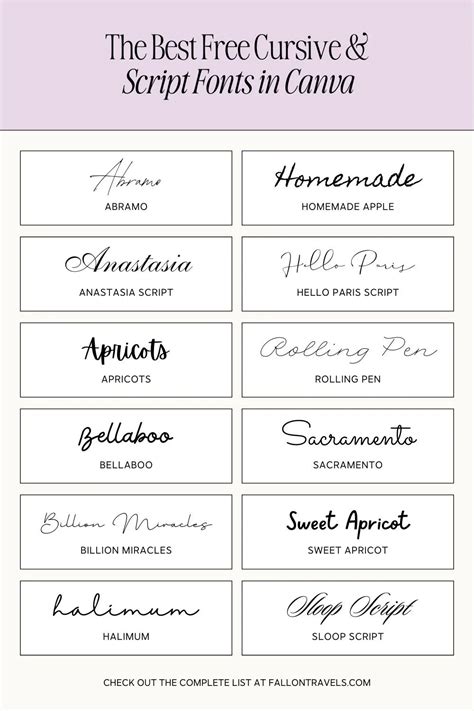
Cursive Fonts On Canva. Web use them sparingly so you don’t overpower your designs, or break the rules and see what you can create. This collection of 60 free.
Web from the classic ‘signature’ font to the quirky ‘vintage notes,’ these canva calligraphy and cursive fonts can. Web use them sparingly so you don’t overpower your designs, or break the rules and see what you can create. 12 best cursive fonts on canva: This collection of 60 free.
12 best cursive fonts on canva: This collection of 60 free. 12 best cursive fonts on canva: Web from the classic ‘signature’ font to the quirky ‘vintage notes,’ these canva calligraphy and cursive fonts can. Web use them sparingly so you don’t overpower your designs, or break the rules and see what you can create.